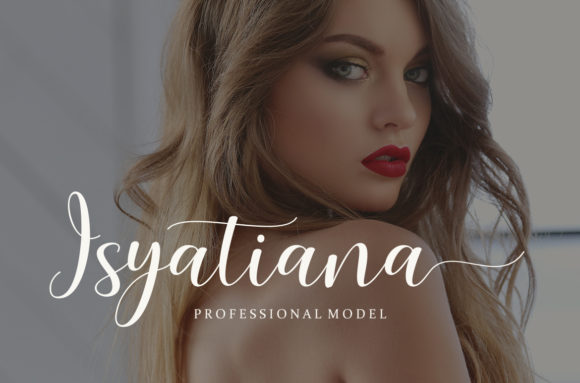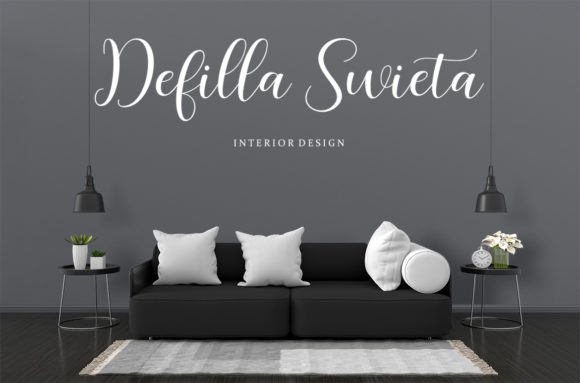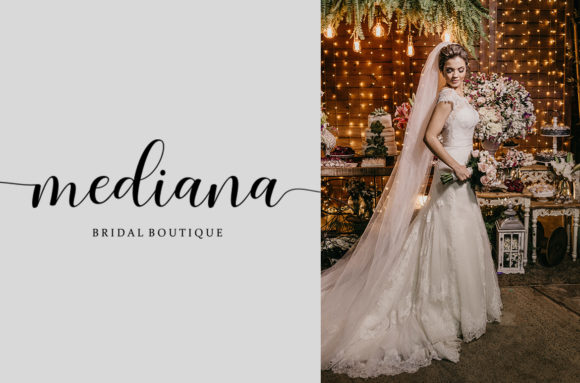
Introduction to Mellady Font
There’s something magical about the first spark of creativity – the moment when an idea starts to take shape, and the excitement of bringing it to life. For designers, this moment is often sparked by the perfect font, one that adds a touch of personality and flair to their project. And that’s exactly where the enchanting Mellady Font comes in – a versatile, high-quality handwritten font that’s sure to capture the heart of your next creative project.
Whether you’re working on a romantic greeting card, a beautiful wedding invitation, or a bold headline, Mellady Font is the perfect design resource to add a touch of whimsy and charm. With its wide range of applications and PUA encoded features, this font is a must-have for any designer looking to elevate their work to the next level.
Key Features of Mellady Font
- High-quality font design with a unique, elegant aesthetic suitable for creative projects and design resources.
- Features a transparent background, allowing for seamless integration into any design project.
- Available in a range of sizes and resolutions, including 300 DPI and 600 DPI, to suit various design needs.
- Designed to be highly legible and versatile, making it suitable for a wide range of creative projects, from logos to typography.
Honest Review: Mellady Font
I recently had the chance to work with the Mellady Font, and I must say it’s been a game-changer for my creative projects. The high quality of this font is immediately apparent, with crisp lines and a beautiful, elegant feel.
- What works well: ✨ The Mellady Font is incredibly versatile, making it perfect for a wide range of design projects, from headings to body text.
- ✨ The transparent background makes it easy to customize and layer with other design elements.
- ⚠️ The font may not be suitable for very large text sizes, as it can become pixelated.
- ⚠️ There are limited font weights and styles available, which may limit its use in certain design scenarios.
Overall, I’m thoroughly impressed with the Mellady Font. Its high quality, versatility, and free download make it a valuable resource for designers. With a little creativity, the limitations can be worked around, and I’m confident that this font will become a staple in my design arsenal.
Mellady Font
Some common use cases for Mellady Font include:
– Designing business cards and brochures
– Creating social media graphics
– Making presentations and reports
– Designing websites and web applications
Tips for getting the most out of Mellady Font include:
– Experimenting with different font sizes and styles
– Using the font in combination with other design elements
– Taking advantage of its transparent background to create visually appealing designs
Alternatives to Mellady Font
The Great Vibes Font is a high-quality, elegant script font ideal for creative projects that require a touch of sophistication. It’s available for free download and is perfect for designing wedding invitations, quotes, and other artistic elements. Great Vibes Font has a similar feel to Mellady Font, but with a more refined and delicate appearance.
The Alex Brush Font is a beautiful, handwritten font suitable for various design projects, including branding, typography, and packaging. This font features a transparent background, making it easy to use on any design surface. Compared to Mellady Font, Alex Brush Font has a more cursive and artistic feel, making it perfect for designers who want to add a personal touch to their work.
The Ostrich Sans Font is a modern, sans-serif font that’s perfect for designing clean and minimalistic designs. This font is available for free download and is ideal for creative projects that require a professional and elegant look. Compared to Mellady Font, Ostrich Sans Font has a more geometric and straightforward appearance, making it suitable for designers who want to create a modern and sophisticated design.
Is the Mellady Font suitable for print or digital designs?
The Mellady Font is a versatile font that can be used for both print and digital designs. Its high-quality design and transparent background make it an excellent choice for creating visually appealing designs for various creative projects. Whether you’re working on a brochure, website, or social media graphics, the Mellady Font can help you achieve professional-looking results.